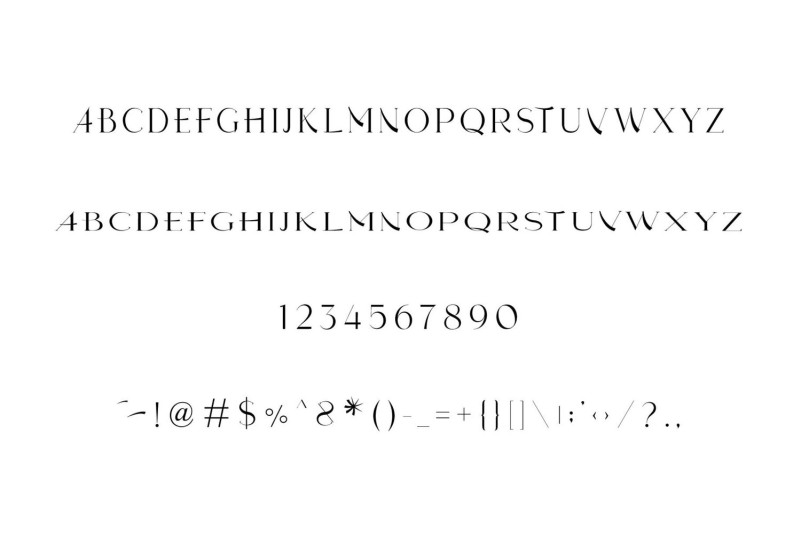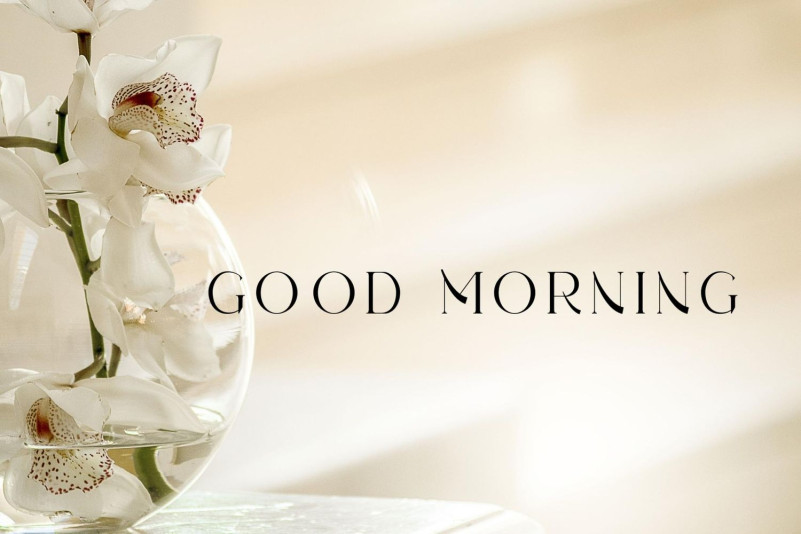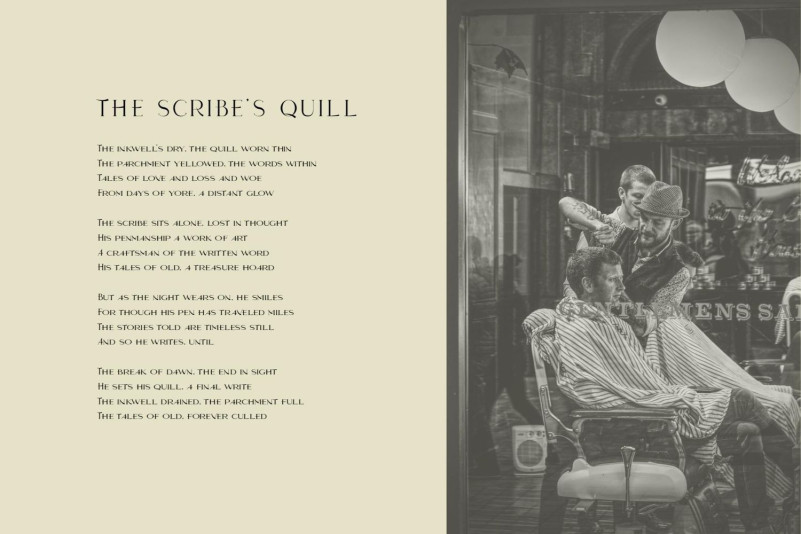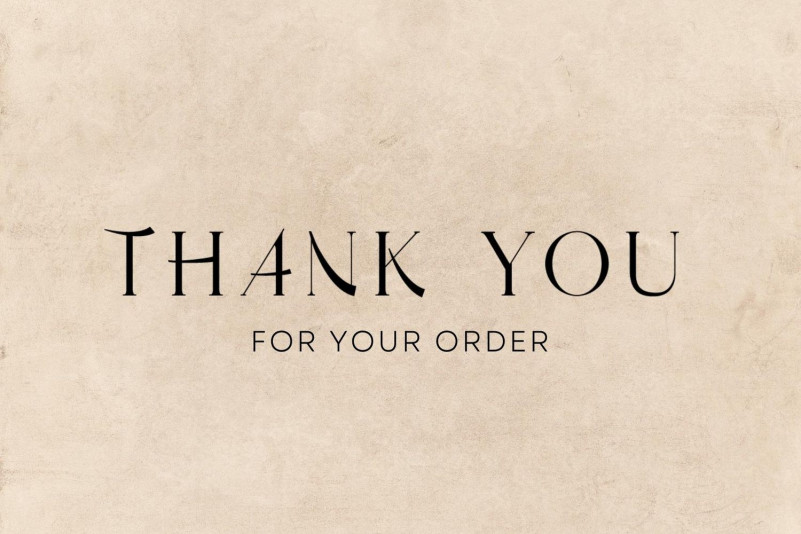
Grandious Font
Grandious Serif Font is a font of timeless grace, elegant and bold. It takes its place in headlines and logos as a standout sight, a display sans serif of pure delight. With clean lines and a versatile style, Grandious adds a touch of flair and guile to any project, big or small.